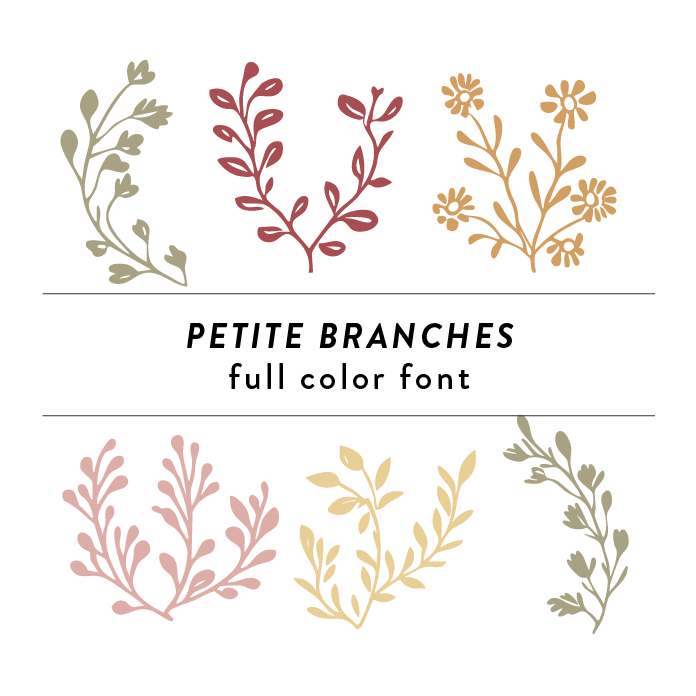
Petite Branches Full Color Font features delicate and intricate tree branches, leaves, and garden elements. This unique font design adds a whimsical and natural touch to any project, perfect for nature-themed designs or for creating a playful and artistic look. This font is a OTF craft font that will appear in color only when used with the silhouette software.